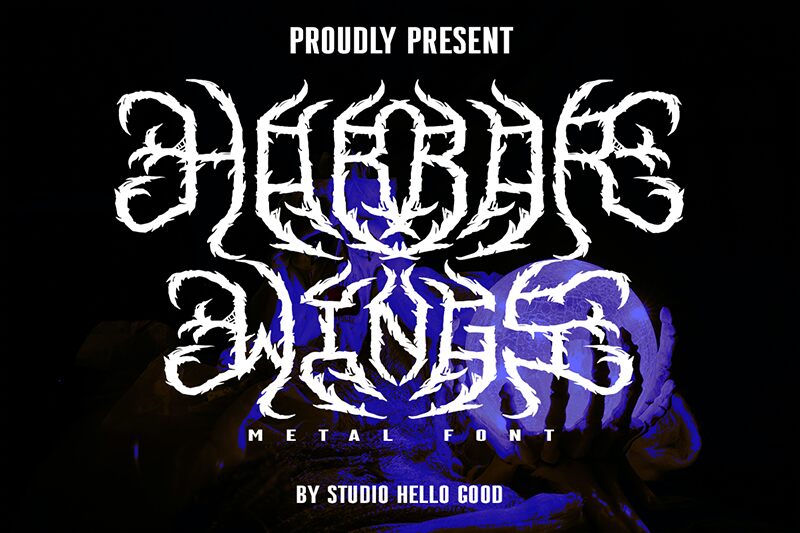
Horror Wings font by Studio Hello Good channels a gothic look with a metal genre inspiration. This font’s design is achieved creatively through intricate details and sharp elements that seem to aggressively clash against one another. Horror Wings’ ornamental style, intense mood, and dramatic impact are ideal for users who want to bring a dark aesthetic to their design projects.
The font can be used for gothic, horror, or metal-related projects such as movie posters, CD covers, logos, etc. It will also look hauntingly interesting in a wide range of print, packaging, and digital projects.